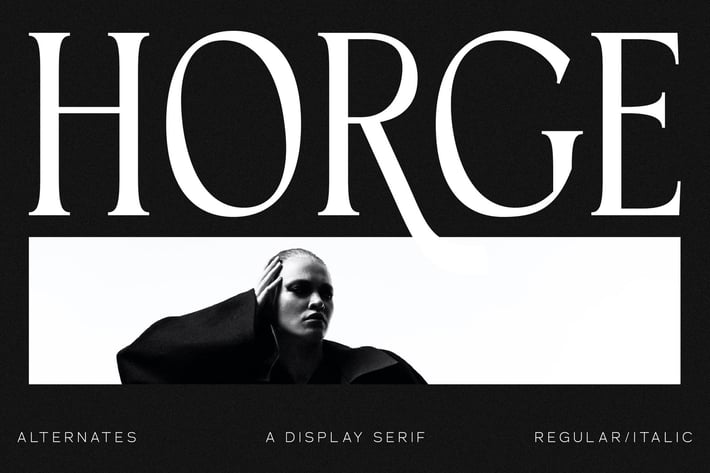
Horge A Display Serif Font
A bold, high-impact serif typeface crafted for modern creatives who want elegance with a dramatic edge. Perfect for branding visuals, editorial layouts, and standout promotional graphics, Horge delivers a timeless aesthetic with strong contrast and stylish alternates.
Stylish display serif with alternates
Regular & italic styles included
High contrast, elegant letterforms
Posters & editorial layouts
Branding & visual identity
Luxury product promotions
Social media graphics
Invitations & stationery
* Creative typography projects
Bring bold, editorial elegance to every design with a serif that commands attention.